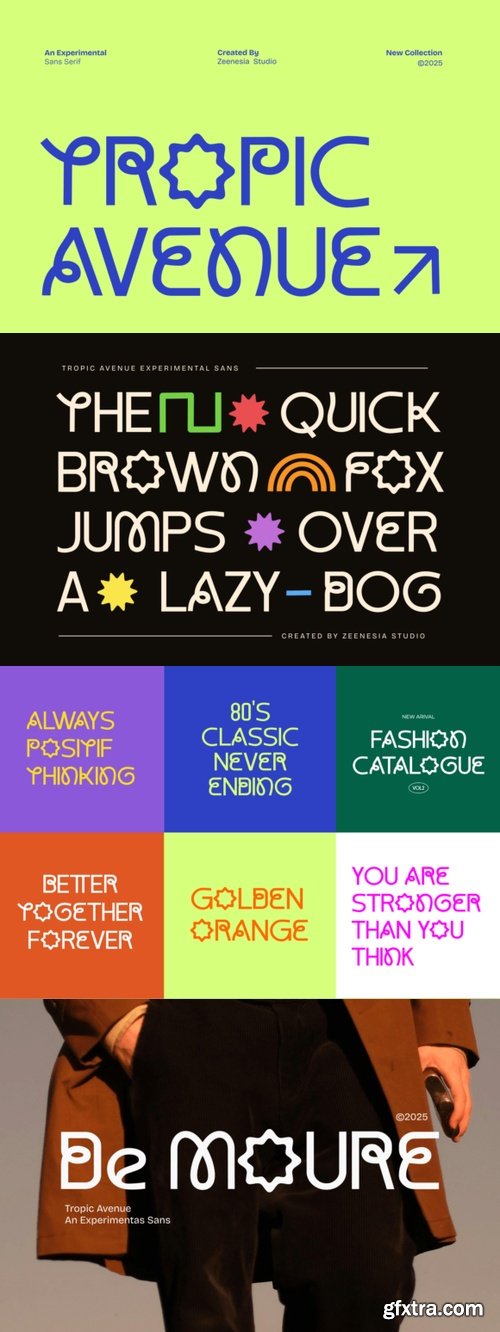
CreativeMarket - Tropic Avenue 291080054
- Tropic Avenue is an experimental sans serif font. Its distinctive structure blends bold strokes with organic curves, offering a fresh take on modern typography. Each letter is thoughtfully designed to achieve a balance between clarity and artistic expression. Ideal for contemporary branding, editorial layouts, and digital media, Tropic Avenue draws attention with its unconventional yet highly legible form.